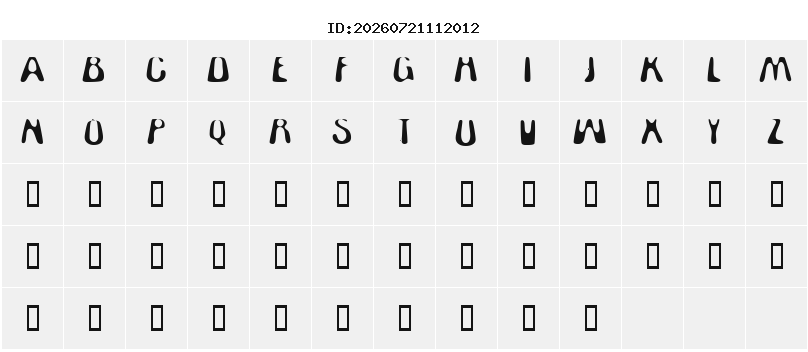
Flatman Preview
• Font Name: Flatman
• Font Style: Thin
• Font ID: Flatman
• Full Font Name: Flatman Thin
• PostScript Name: FlatmanThin
• Character Count: 28
About Flatman.ttf
Flatman.ttf is a modern, elegant sans-serif font designed for ultimate readability and visual harmony. Perfect for branding, headlines, web design, and print materials.